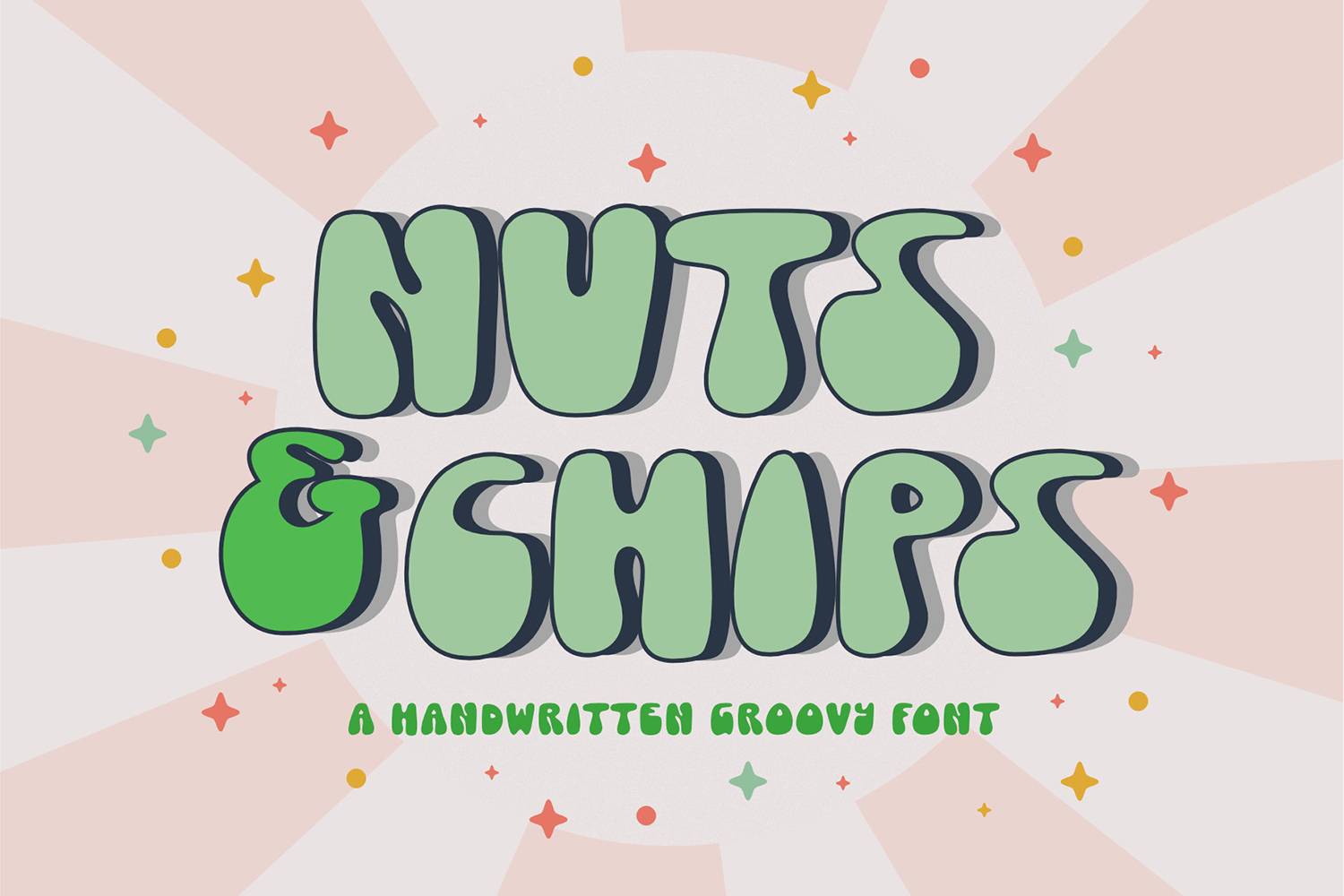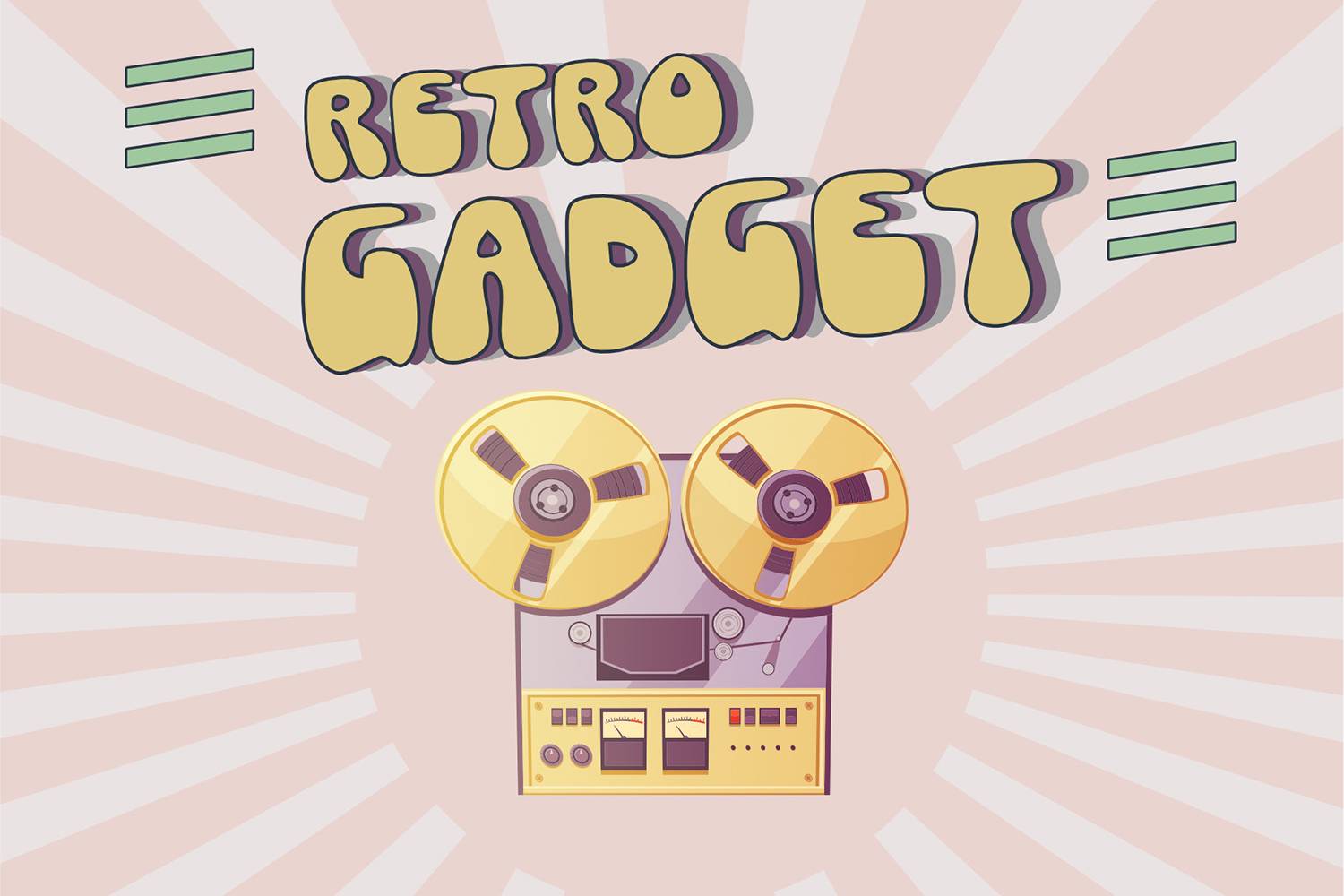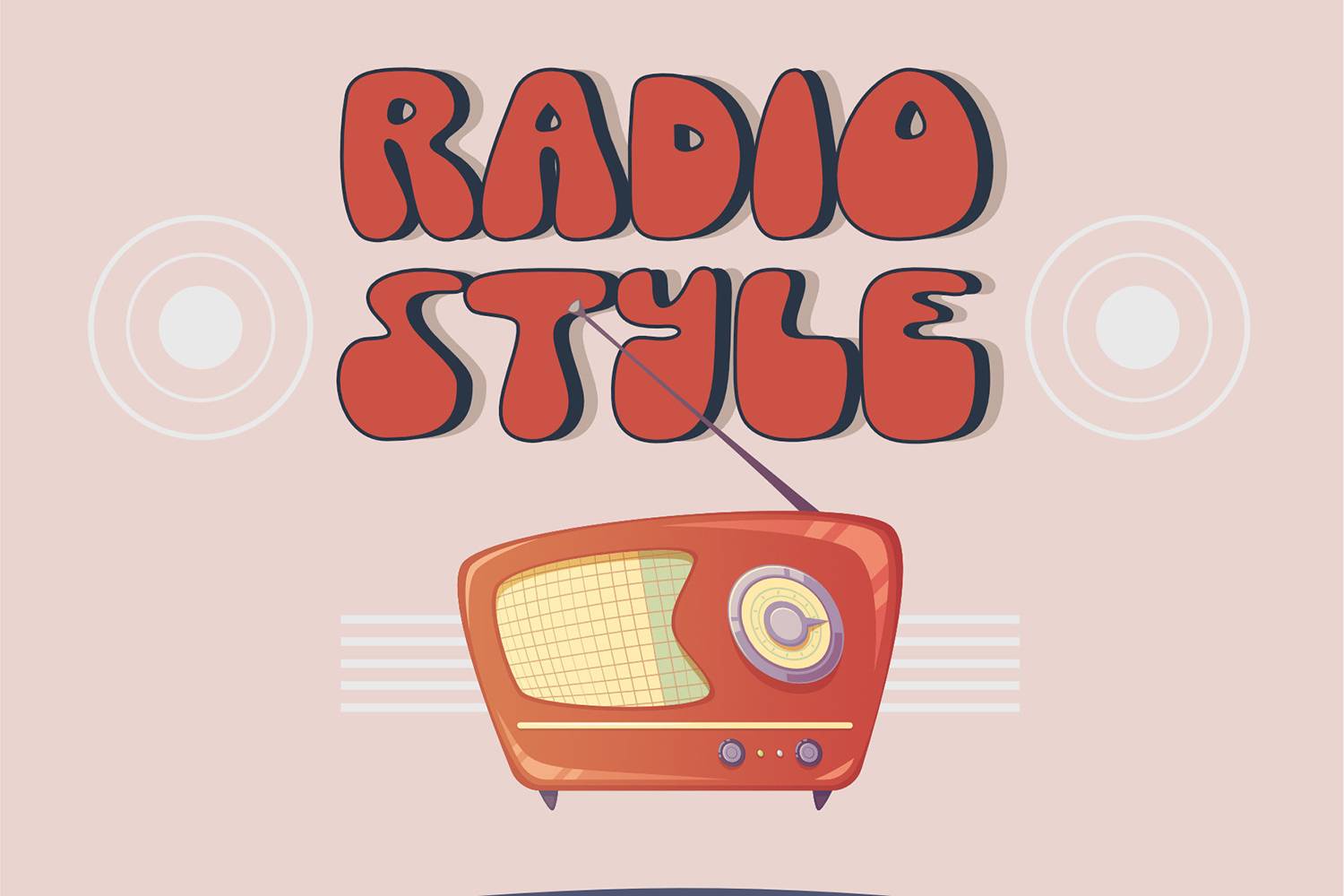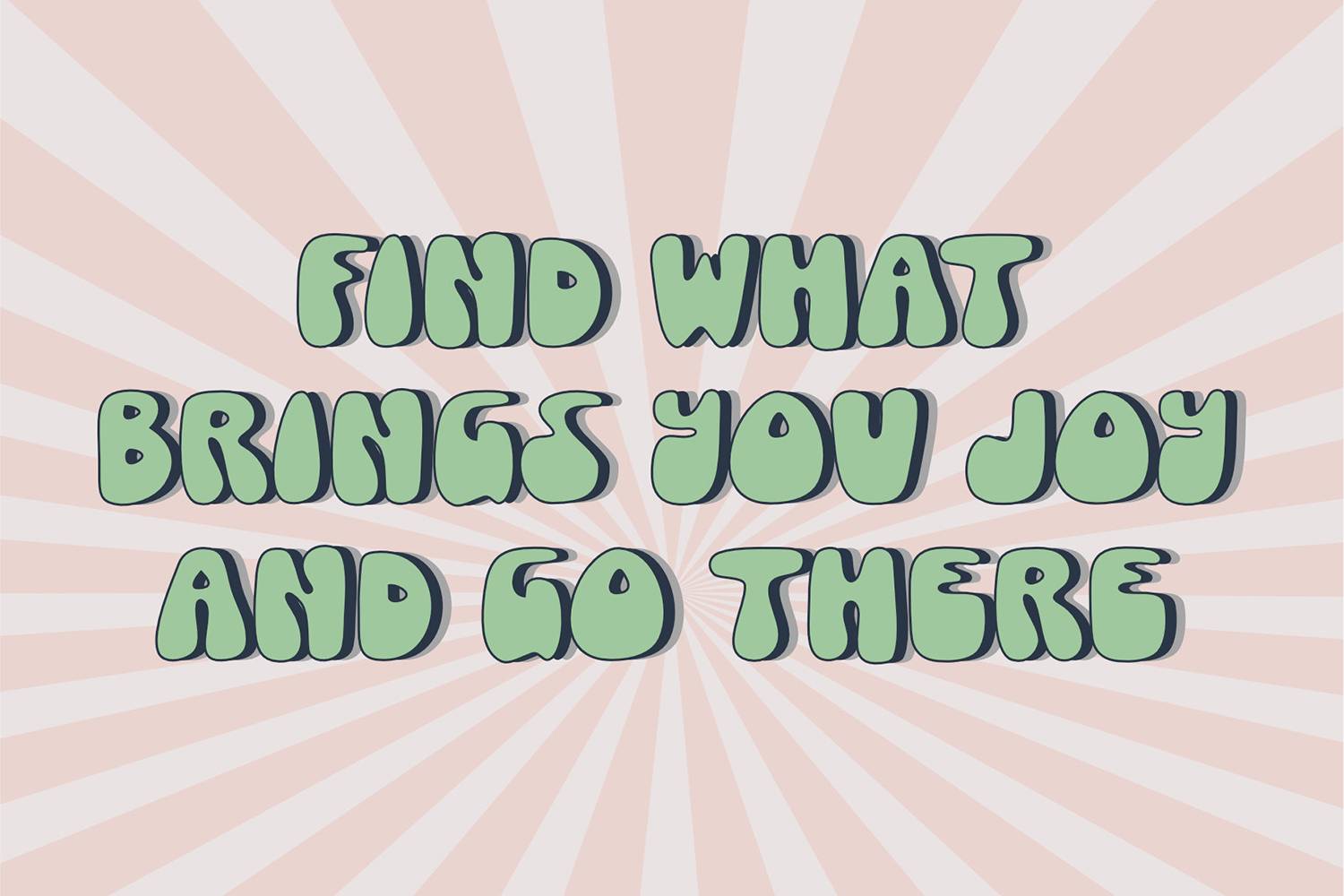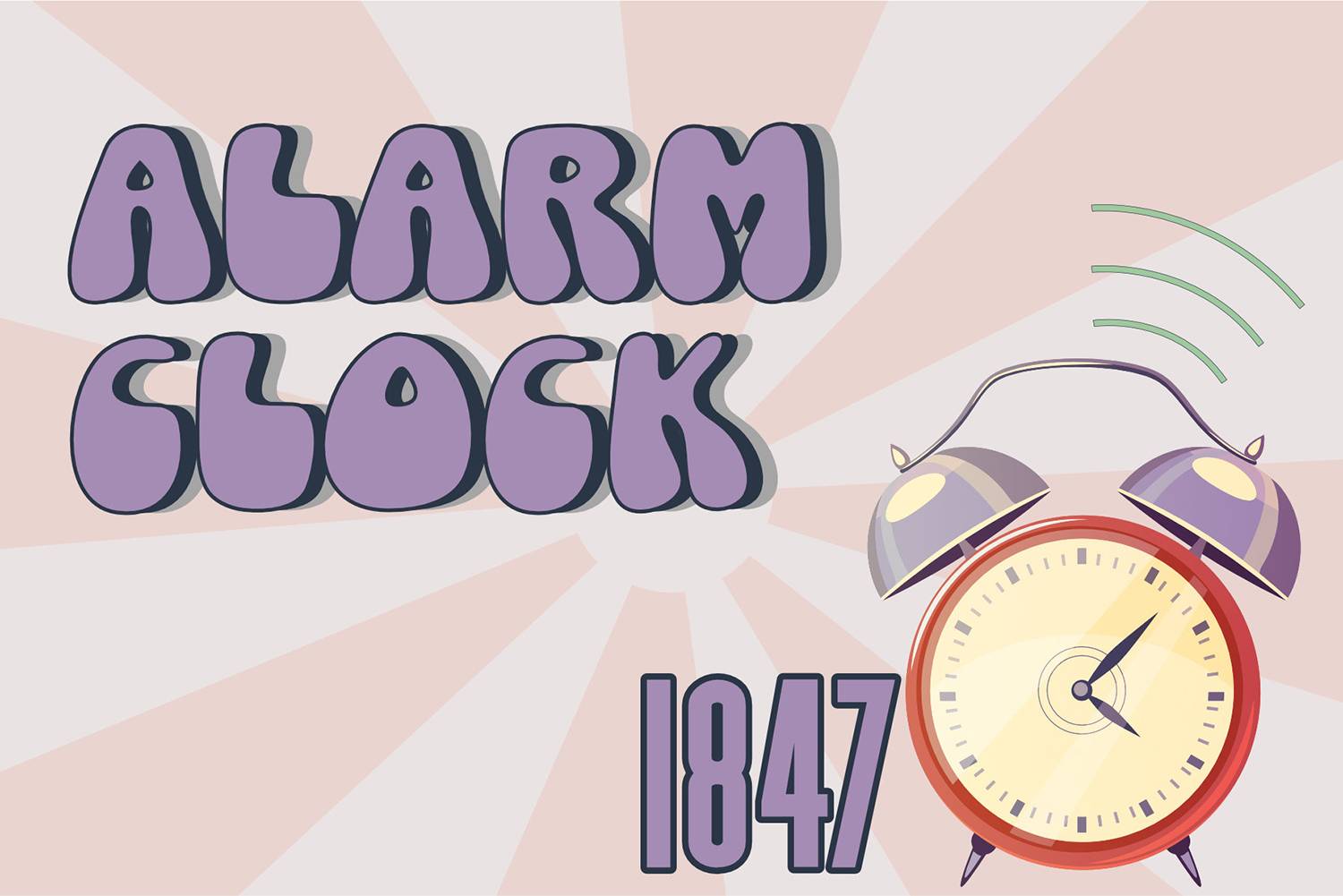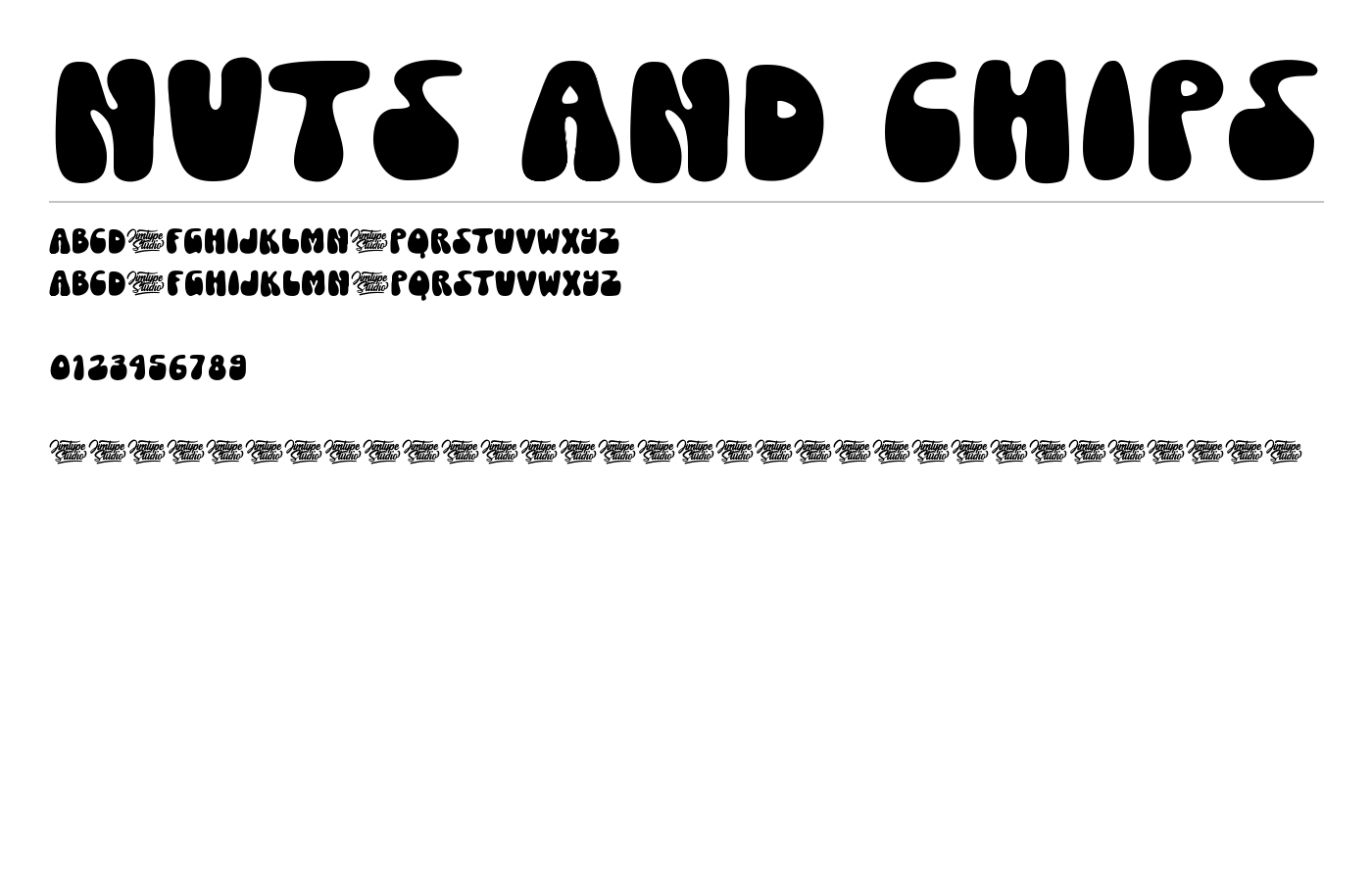
Nuts and Chips is a playful, bold display font with thick, rounded letterforms that create a soft and friendly vibe. Its chunky, irregular shapes give it a casual, almost hand-drawn feel, making it perfect for fun, informal designs like kids’ products, party invitations, or quirky branding. This font works best at large sizes where its unique character and charm can really shine.
Nuts and Chips Font